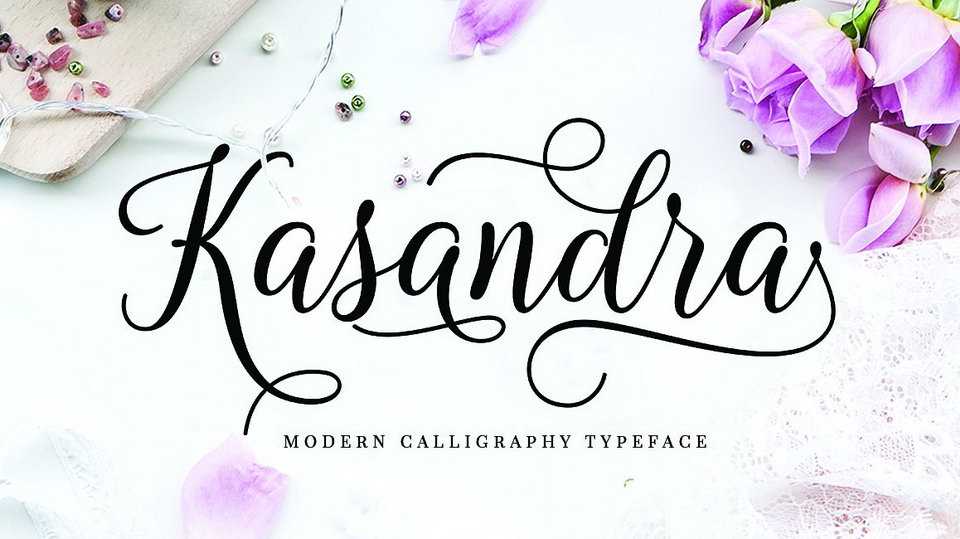
Download Kasandra Script, a lovely modern calligraphy font that features a varying baseline, smooth line, classic and elegant touch for headings, signature, logos, wedding invitation, t-shirt, letterhead, signage, lable, news, posters, badges etc.